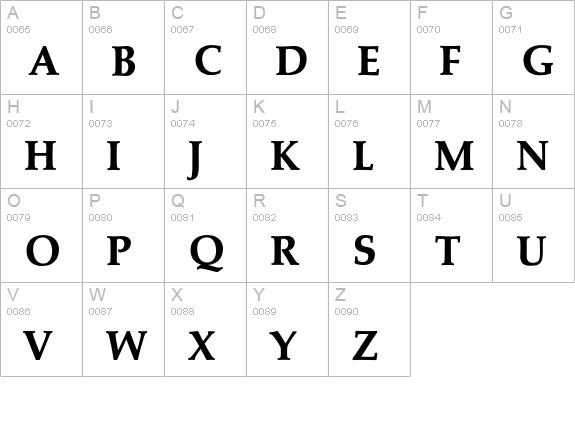
Marath-Bold is a strong, high-contrast variant in the Marath typeface family \xE2\x80\x94 well suited to headlines, attention-grabbing titles, and strong calls-to-action.
Marath-Bold is a bold and striking typeface that exudes power and confidence. With its strong and assertive letterforms, this font is perfect for making a bold statement in any design project. Whether you're creating a logo, poster, or headline, Marath-Bold will command attention and leave a lasting impression. This font features a unique blend of sharp edges and smooth curves, giving it a modern and contemporary feel. Its bold weight ensures maximum impact, while still maintaining excellent readability. The letters are perfectly balanced, ensuring that each character stands out on its own, while also harmonizing seamlessly with the rest of the typeface. One of the best things about Marath-Bold is that it is free to download at FontsMarket.com. This means that you can easily access and use this amazing font in your projects without any cost. Whether you're a professional designer or a hobbyist, Marath-Bold is a valuable addition to your font library. Designed with versatility in mind, Marath-Bold is suitable for a wide range of design applications. From branding and packaging to editorial and web design, this font will elevate your projects to new heights. Its bold and commanding presence will make your message loud and clear, leaving a lasting impact on your audience. Don't miss out on the opportunity to enhance your designs with Marath-Bold. Download it for free at FontsMarket.com and unleash its powerful potential in your next project.